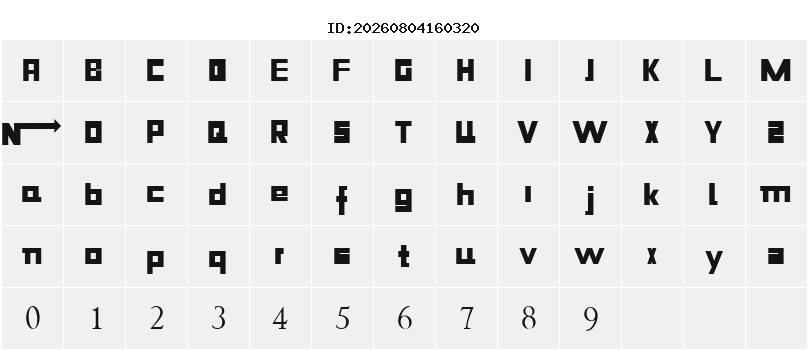
Niiiii-trous Preview
• Font Name: Niiiii-trous
• Full Font Name: Niiiii-trous
• Version: Version 1.00 June 10, 2008, initial release
About Niiiii-trous.ttf
Niiiii-trous.ttf is a modern, elegant sans-serif font designed for ultimate readability and visual harmony. Perfect for branding, headlines, web design, and print materials.